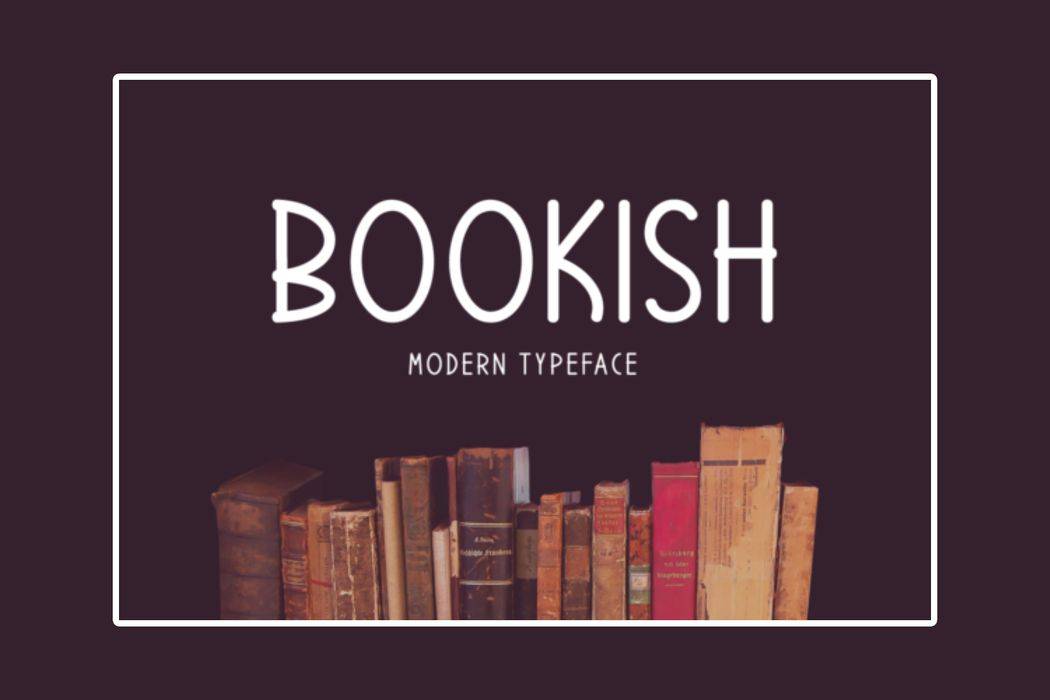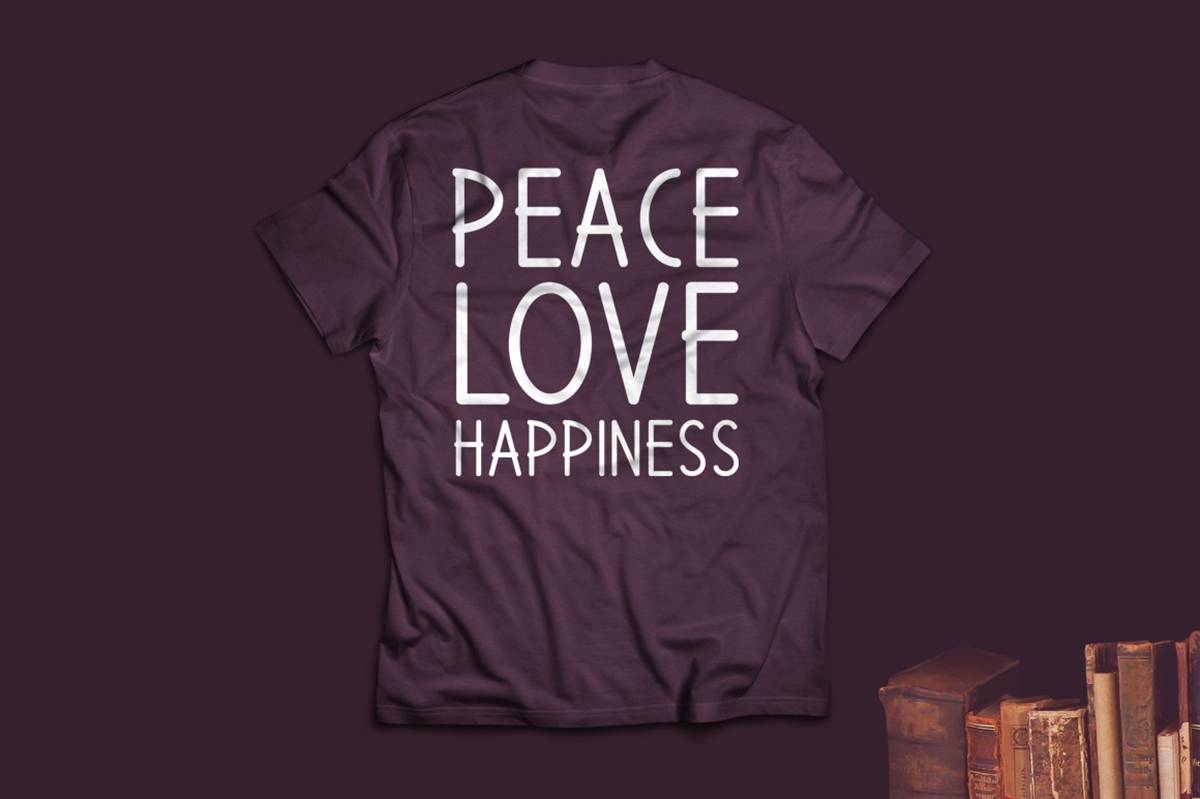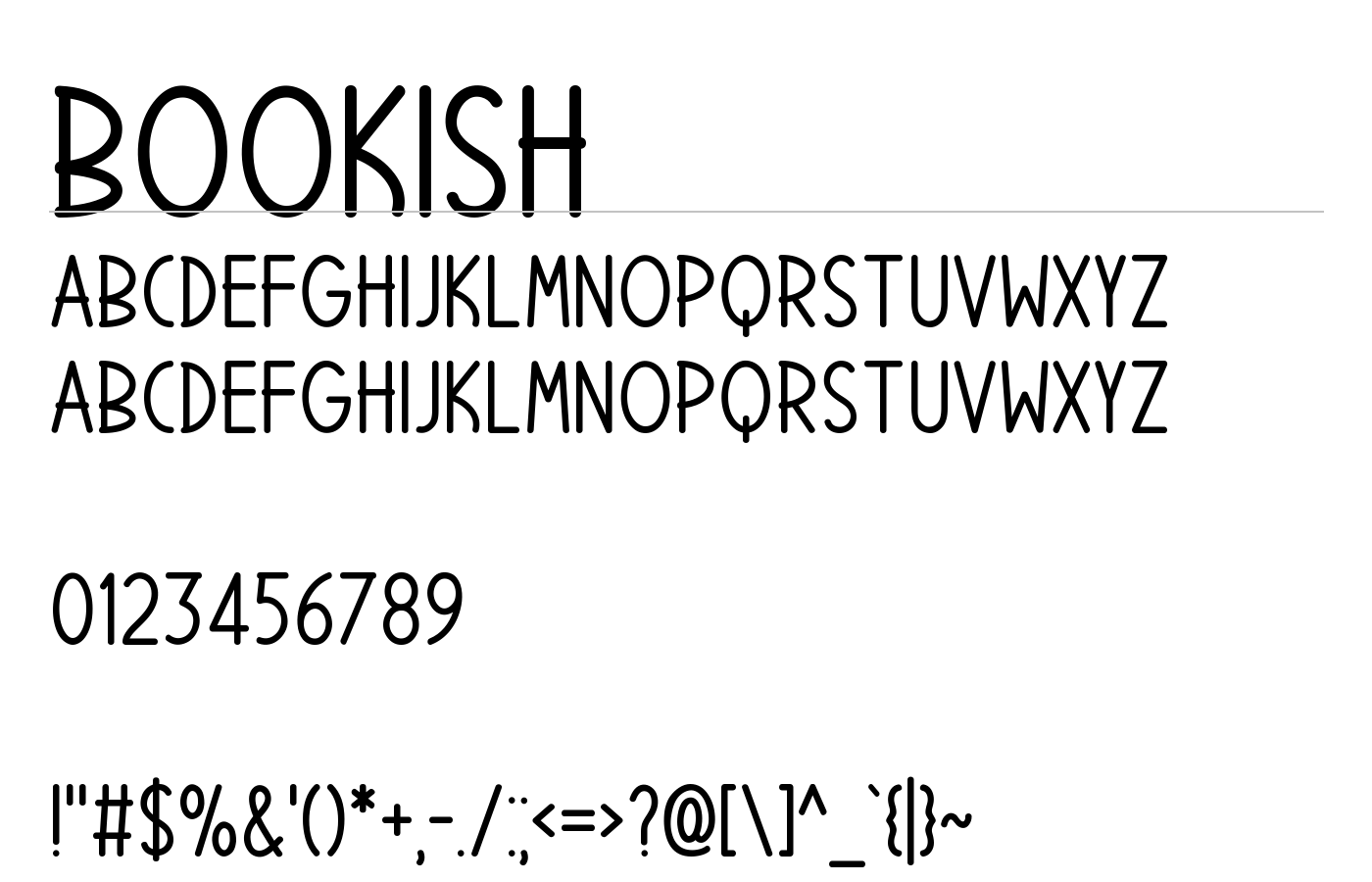
Bookish Font is a playful and casual sans serif typeface with a hand-drawn feel, featuring slender, tall letterforms and rounded edges that create a friendly and approachable vibe. Its consistent stroke weight and clean, open design make it ideal for informal, creative projects such as children's books, educational materials, and whimsical branding. This font works best in headlines, logos, or any design seeking a lighthearted yet clear and readable style.
Bookish Font